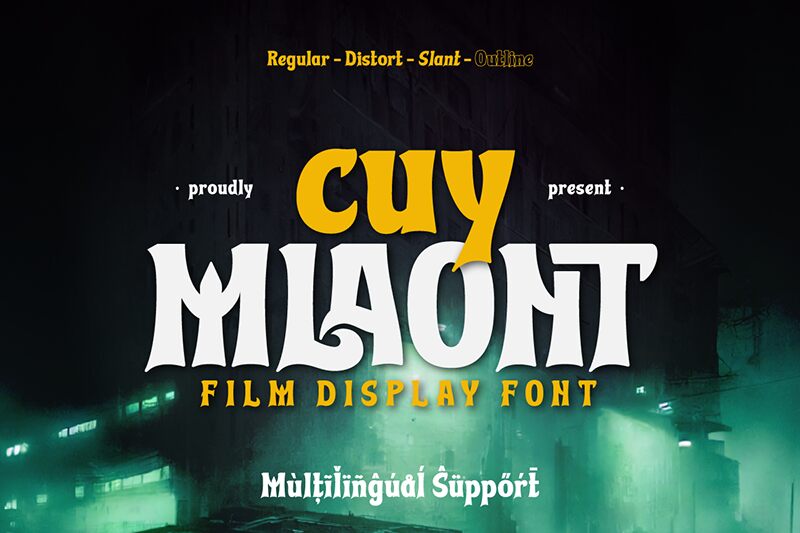
Cuy MLAONT Trial Regular
Cuy MLAONT font by Twinletter is a retro display typeface that captures a unique vintage feel with Gothic-inspired decorative elements. Its bold style gives off an artistic flair that combines historical resonance with an eye-catching theatrical impression, making it stand out in any project.
This free exceptional display font is perfect for posters, book covers, website headers, event invitations, magazine titles, flyers, visual identity designs and games. It can be used in labels and packaging projects such as food & drink products (wine), cosmetics (perfume), as well as many more ideas.